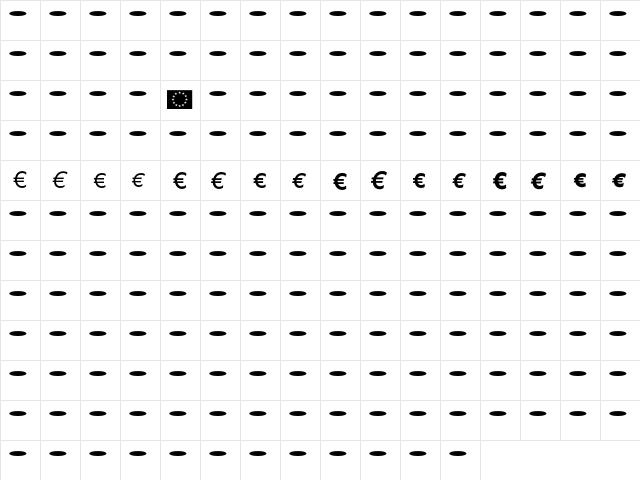
Balance Euro Font Preview
Balance Euro
Balance Euro Font Details
| Style | Euro |
Design Context for Balance Typeface
Balance offers clean, dependable letterforms without strong stylistic allegiance, making it a practical choice for designers who need flexibility.